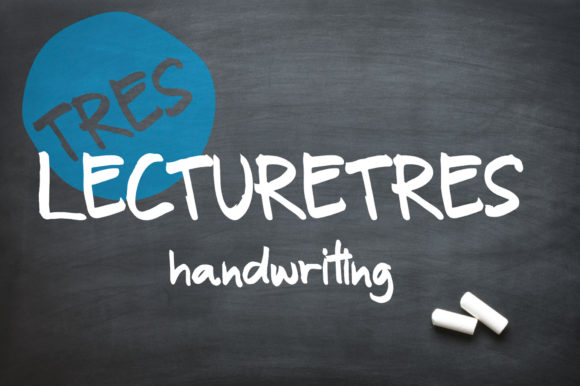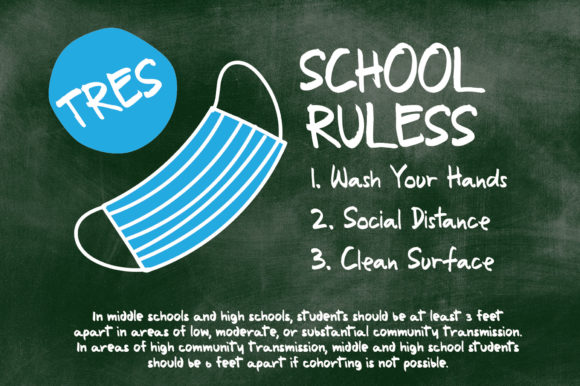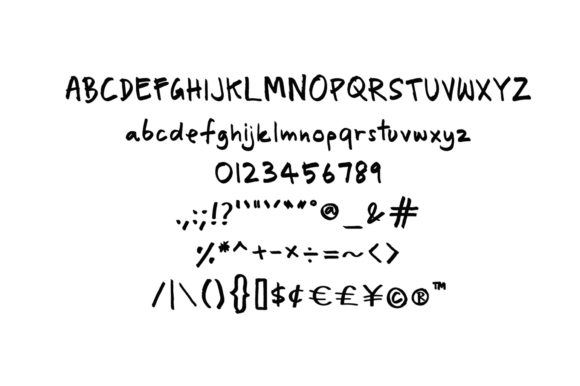
Lecturetres Font
About Lecturetres Font
Lecturetres is a cute, informal and paint brushed handwritten font. Its natural and unique style makes it incredibly fitting to a large pool of designs. The only limit is your imagination!